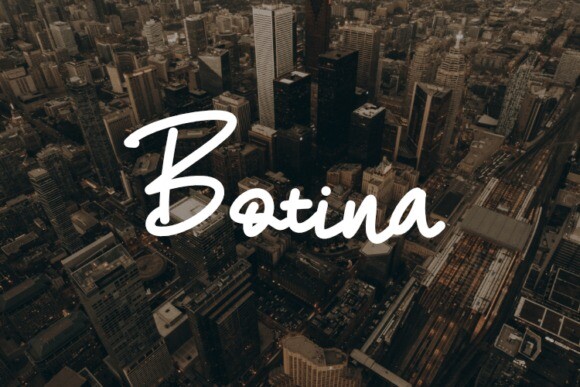
Botina Font
Designer: Eric Kusuma
Botina Font: a unique font created expressly for the appearance-enhancers in our lives. This font graces everything from clothing designs to t-shirt art, offering a wide range of applications to the creative aesthetic engineer. With versatility that makes it a perfect fit for any design and compatibility with all kinds of software, Botina comes in otf and ttf files, giving you absolute freedom to make your design dreams come true. Unleash the potential of your creations with the smooth strokes and striking symmetry of Botina.